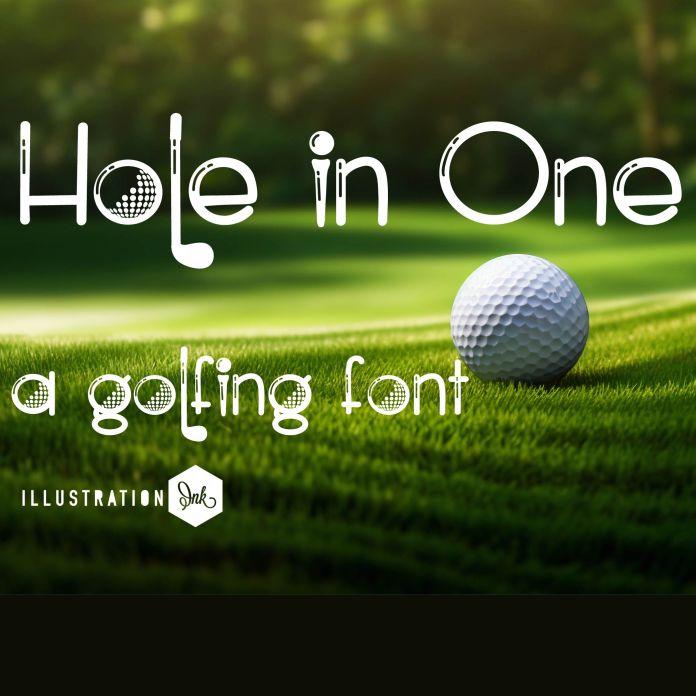
This hand-written font is a fun font featuring golf imagery. There is a highlighted version and plain version. Type copyright, registration mark, and bullet to access the extra glyphs. Some of the characteristics of handwritten fonts include: The letters are not perfectly uniform in size or shape. There may be slight variations in the spacing between letters and words. The font may have a "wiggly" or "squiggly" appearance. The font may be difficult to read at small sizes. Handwritten fonts can be a great way to add a casual touch to your designs. They can also be used to create a sense of nostalgia or whimsy. However, it is important to choose a handwritten font that is appropriate for the project you are working on. A formal handwritten font may not be appropriate for a casual invitation, while an informal handwritten font may not be appropriate for a corporate document.